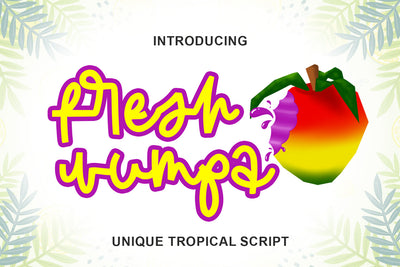
Fresh Wumpa
FRESH WUMPA
- Unique Tropica Script -
FRESH WUMPA is great for t-shirt design, stickers, tote bag design, cards, banners, branding, packaging, quotes, logo, signature, social media, and anything craft project.